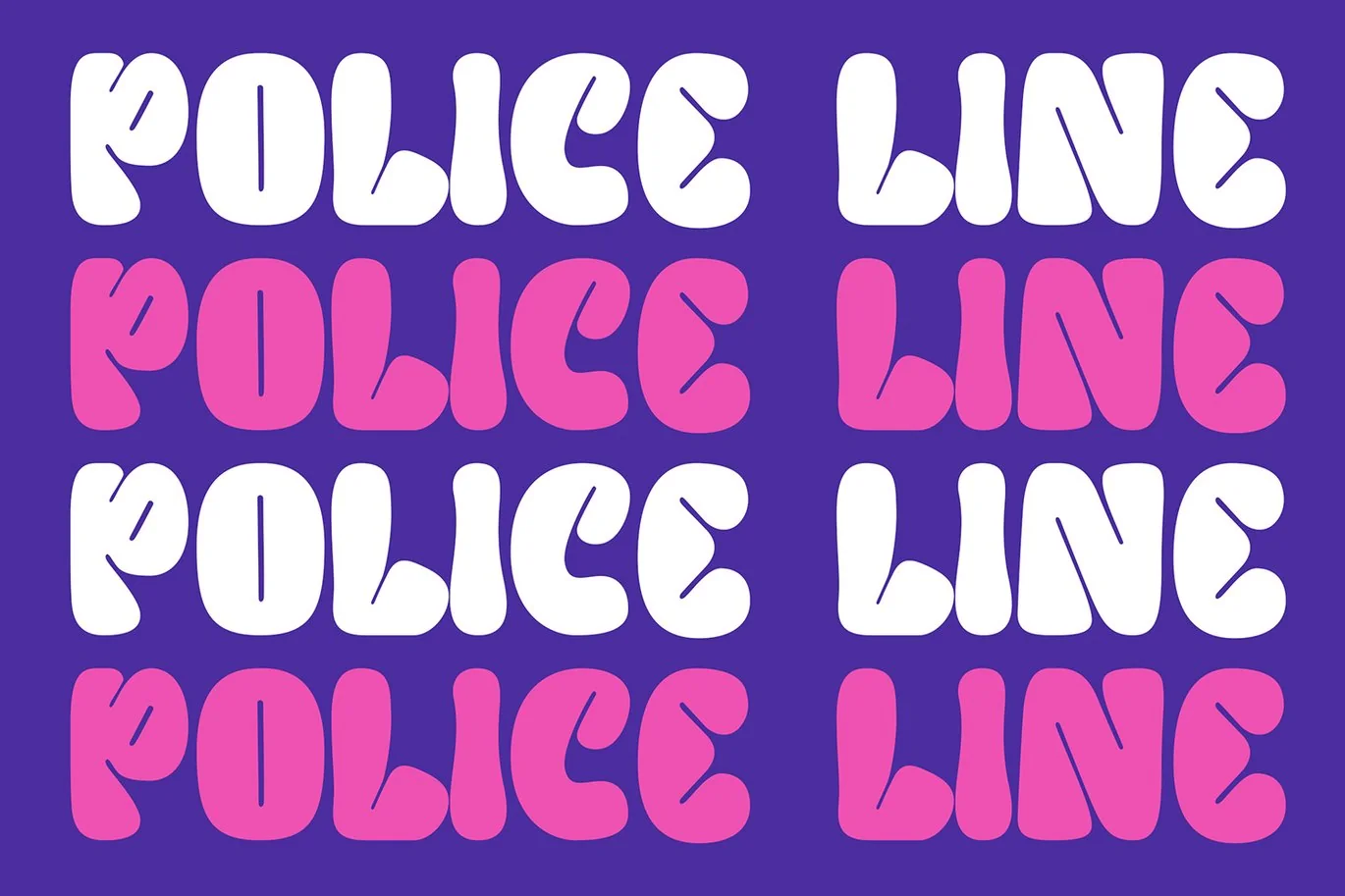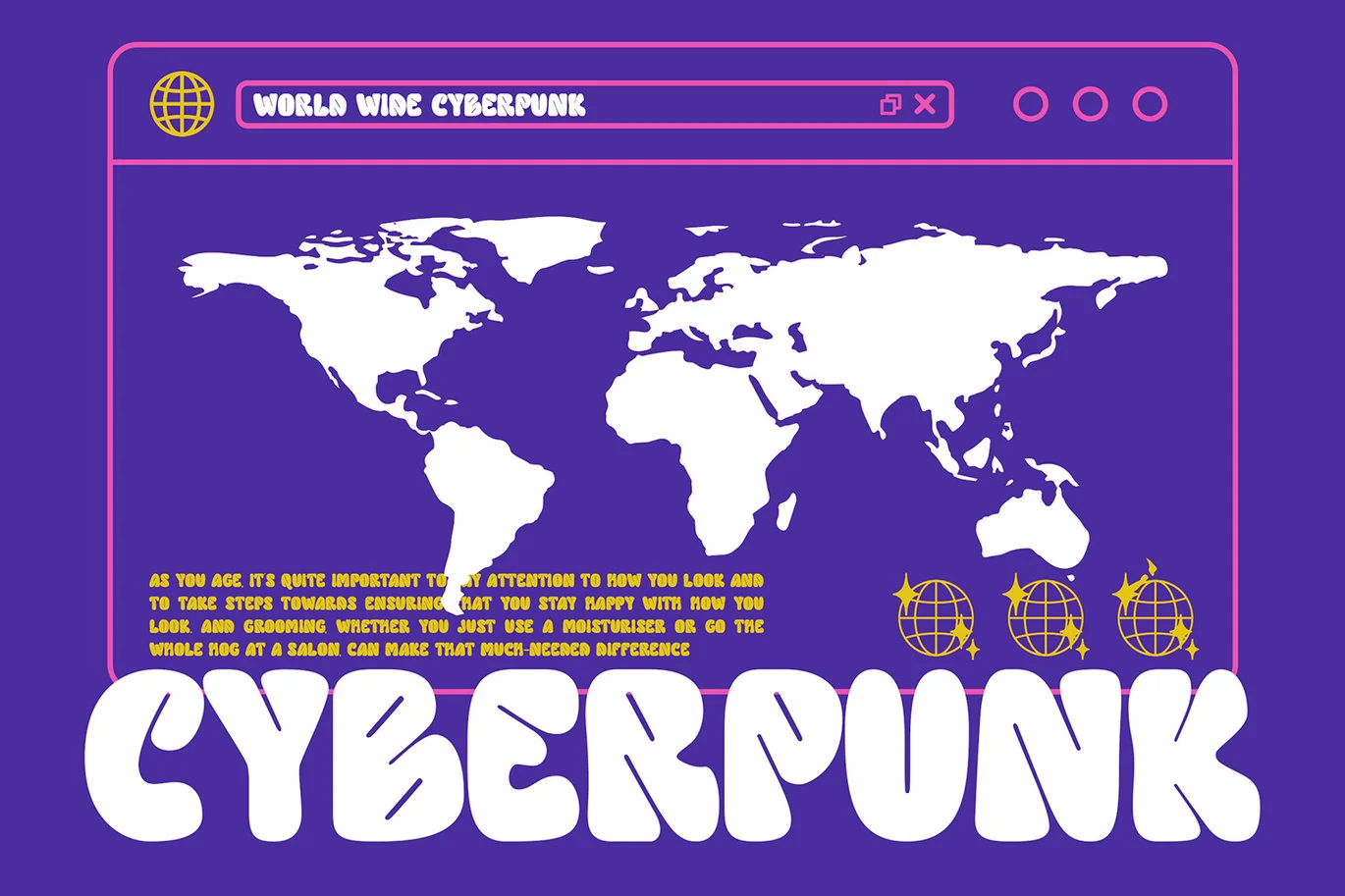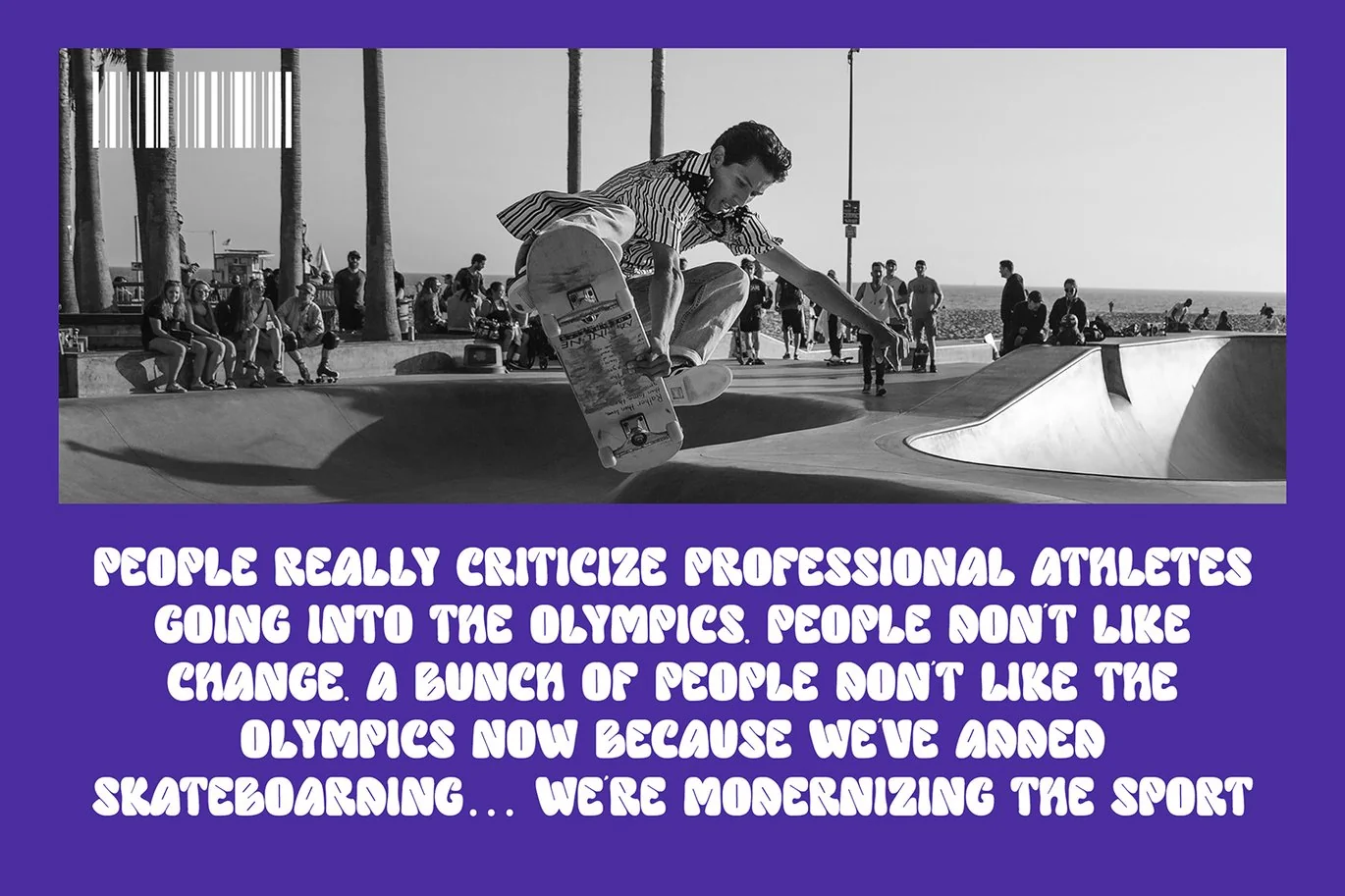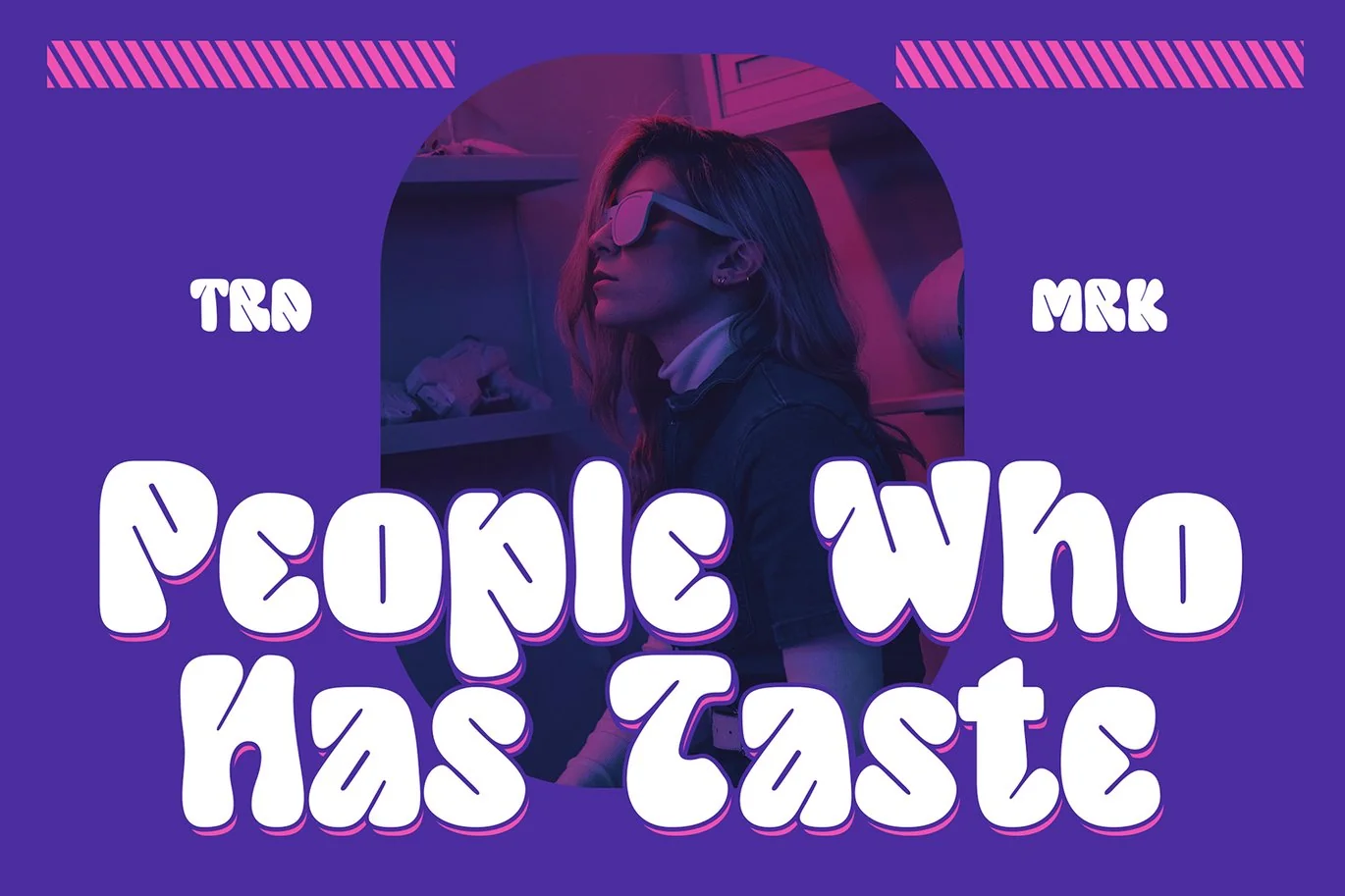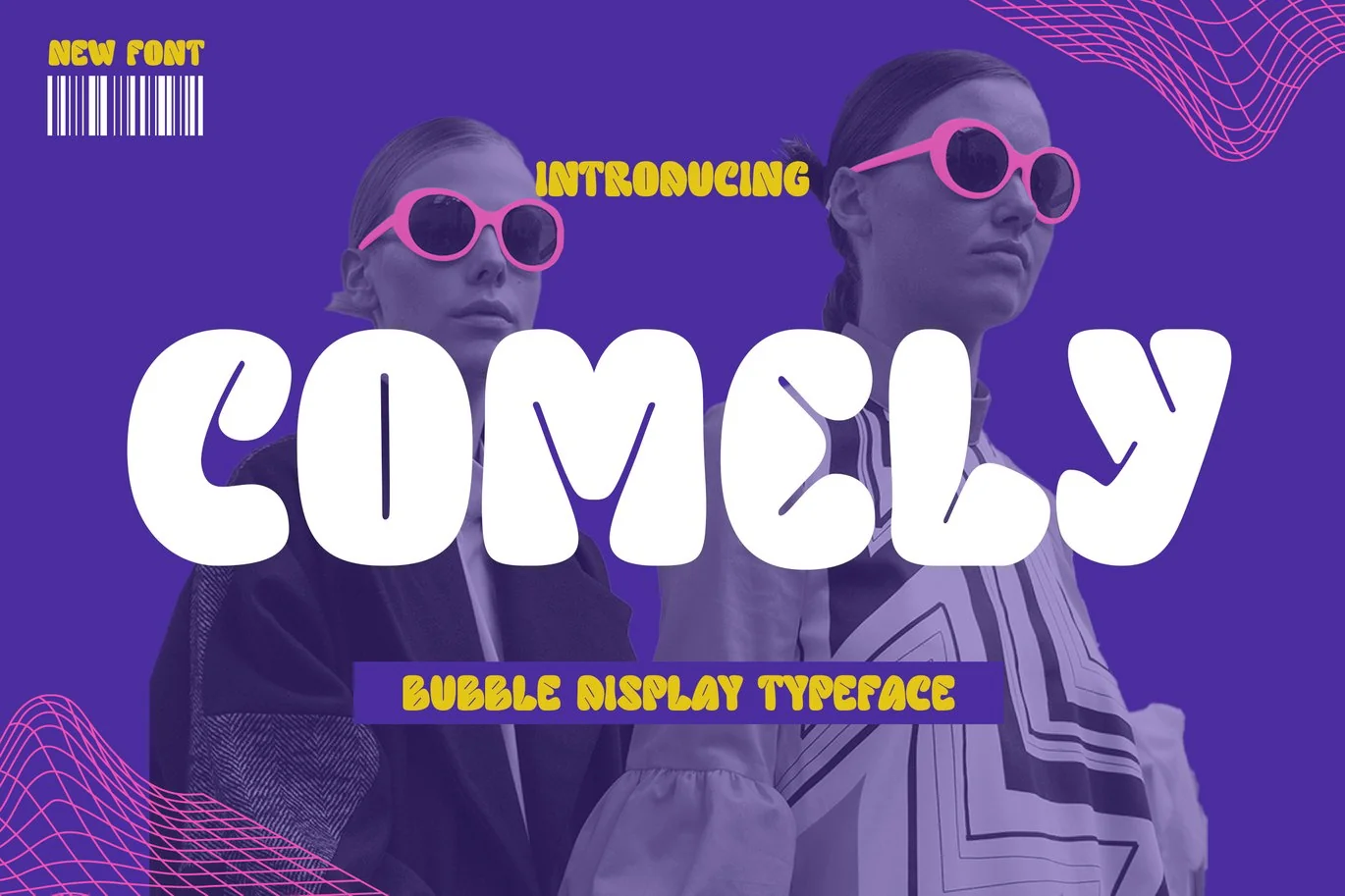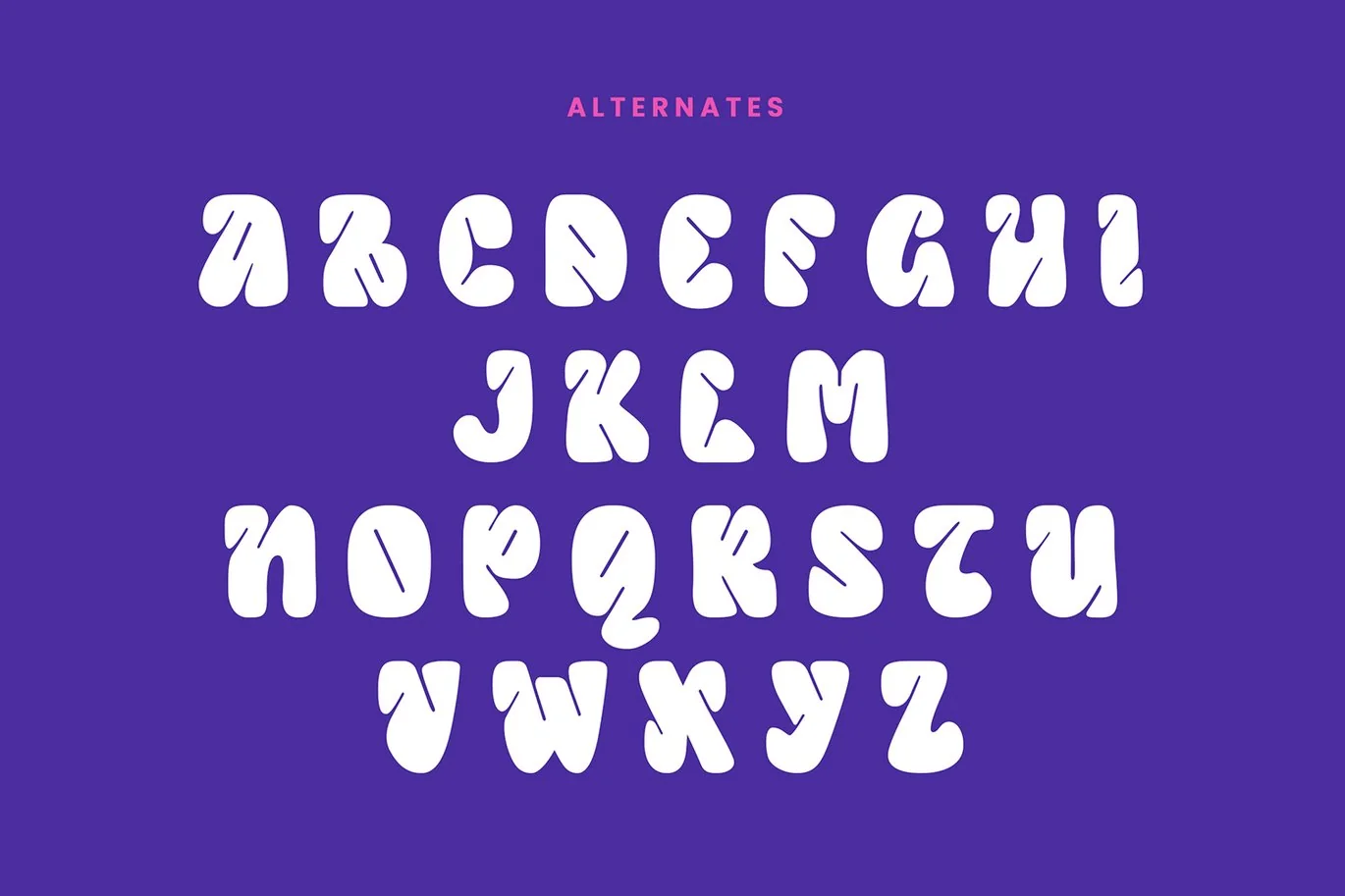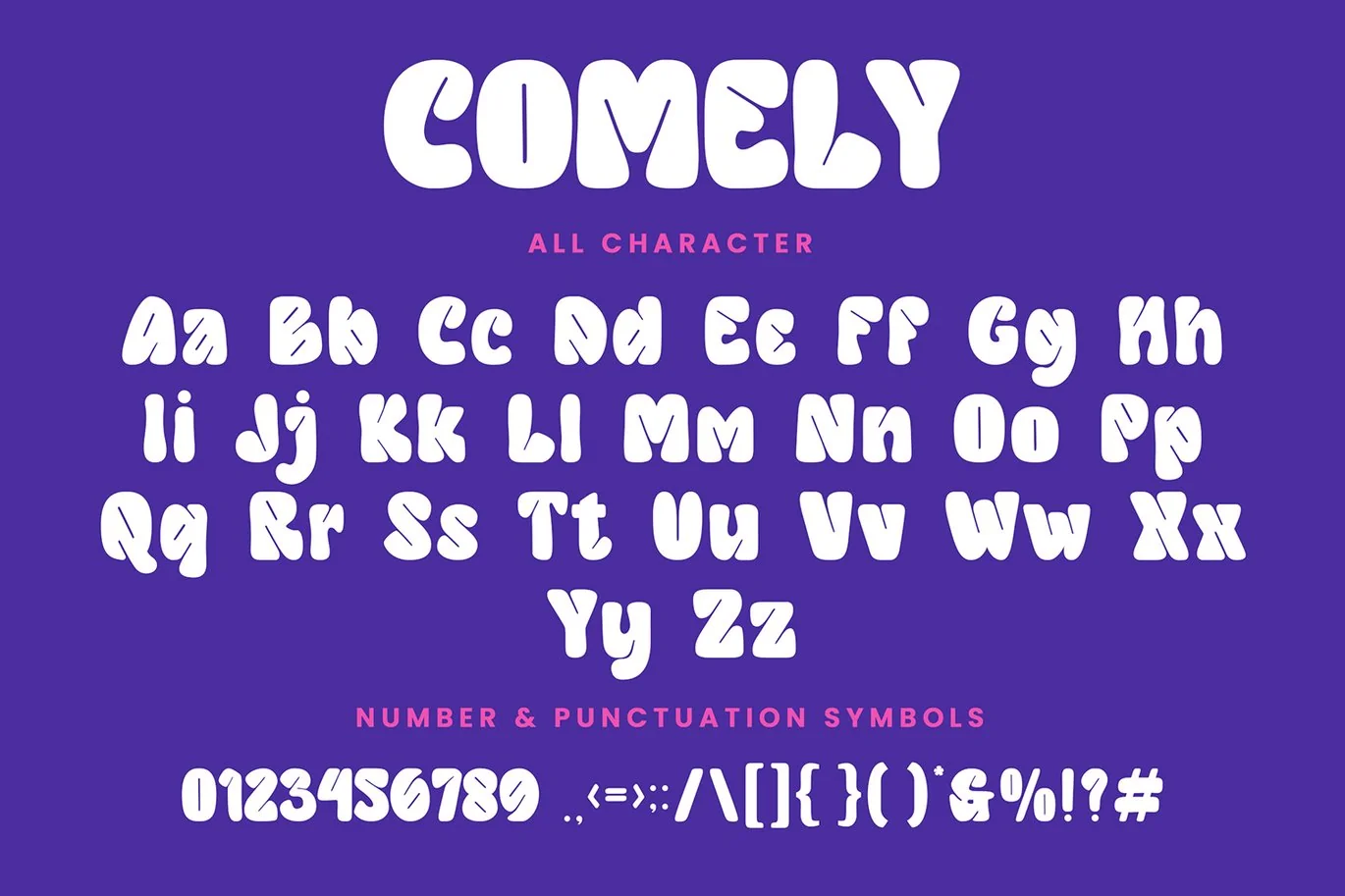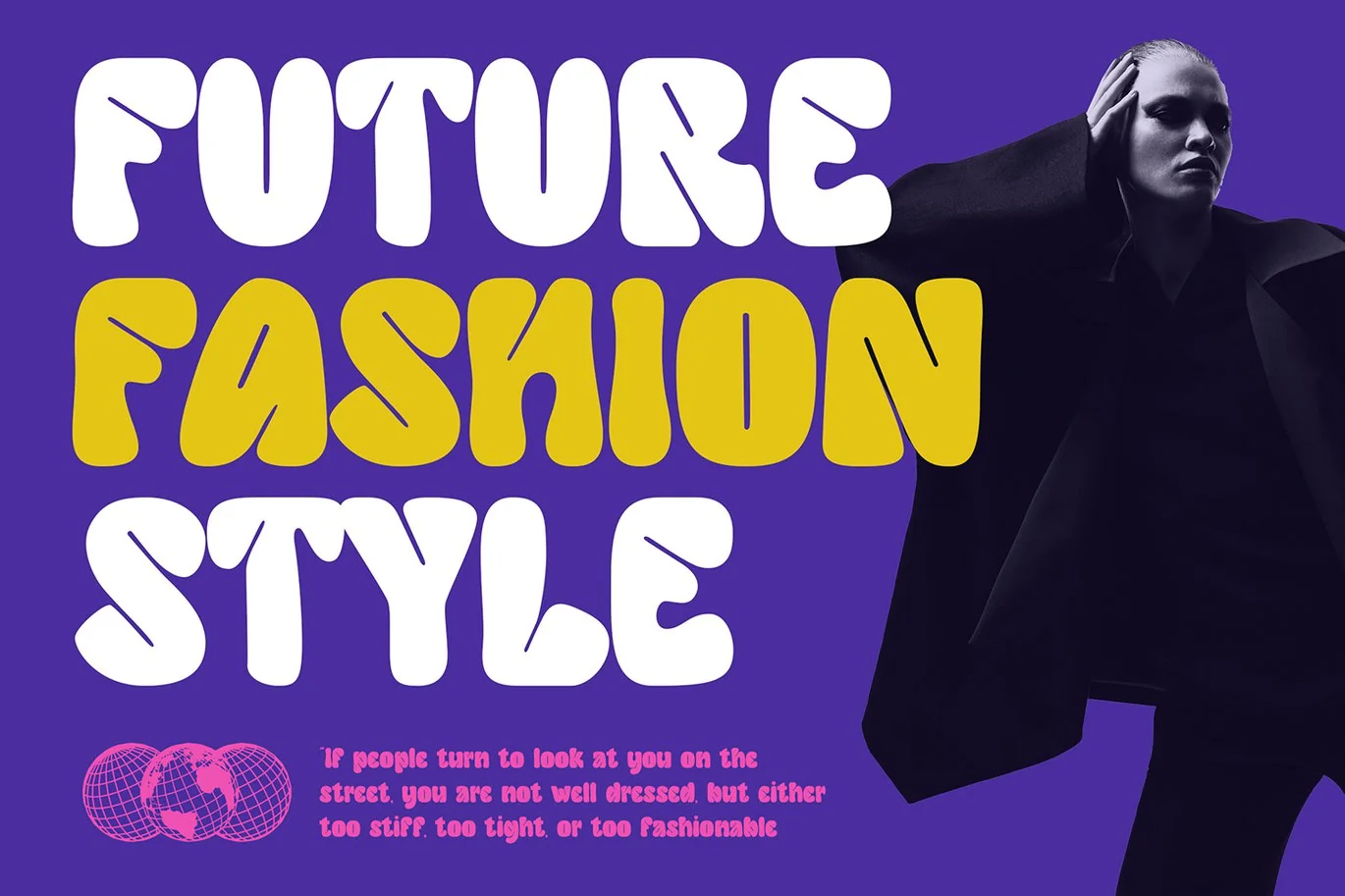
Comely – Bubble Display Font
Comely – Bubble Display Font contains a lowercase, uppercase, symbol, and also supports multi-language. There’s a lot of ligature in this font. Comely – Bubble Display Font also comes with ligatures, stylistic alternates and many more.
this font suitable for fashion, branding, catalog and other design that you want.